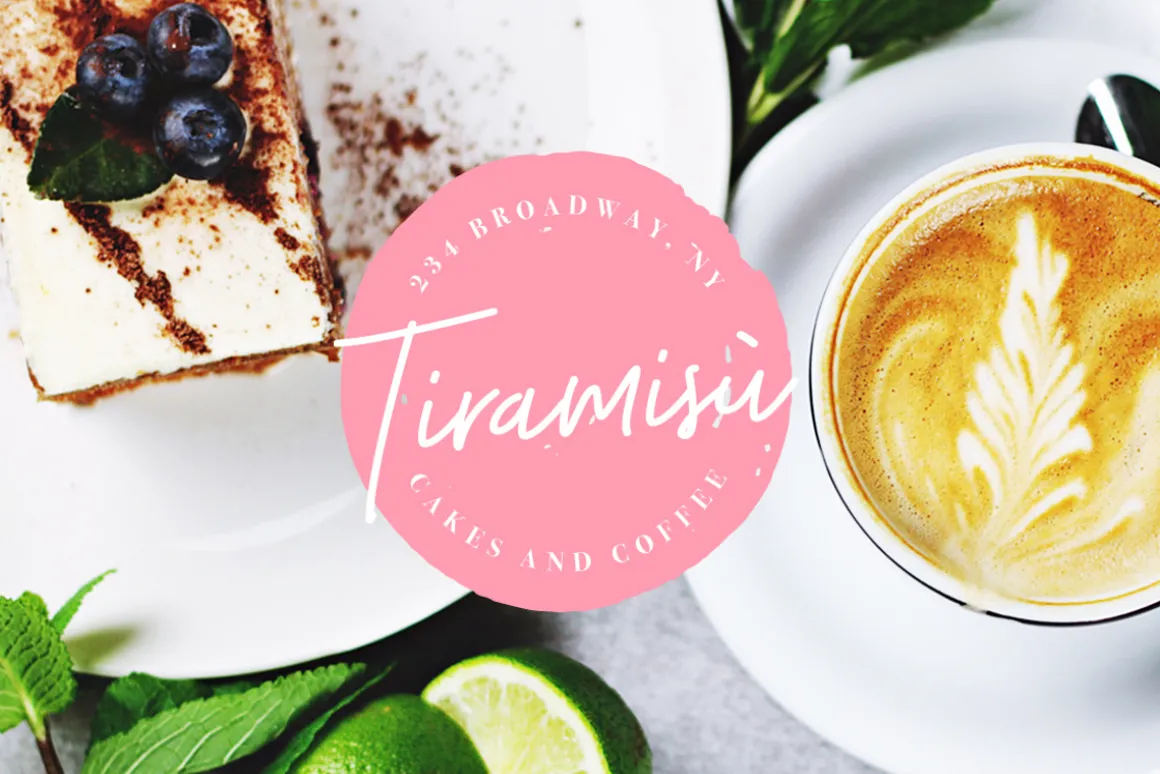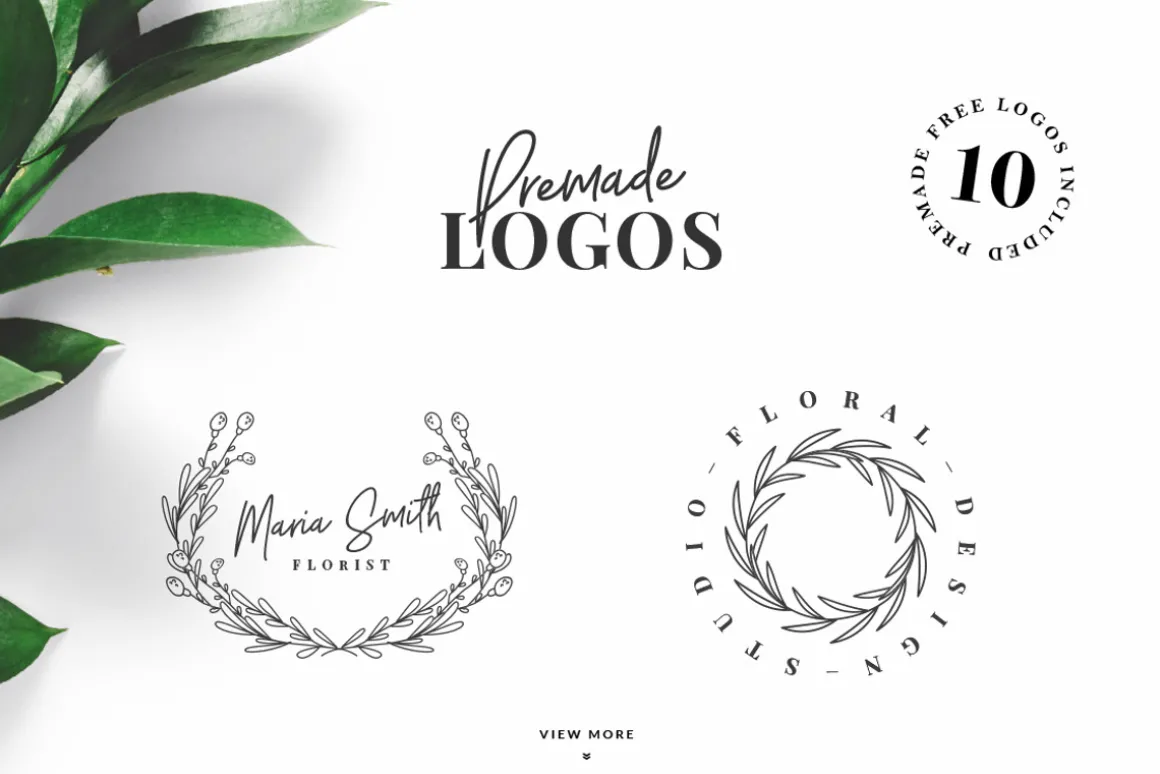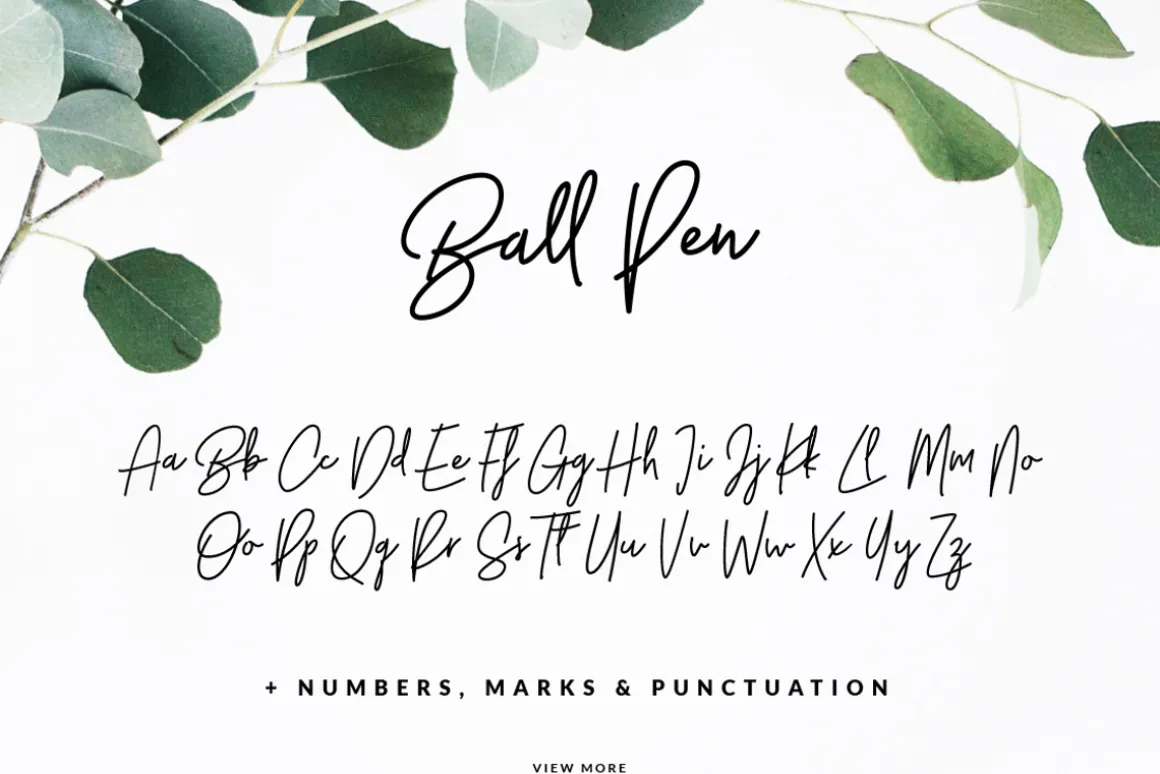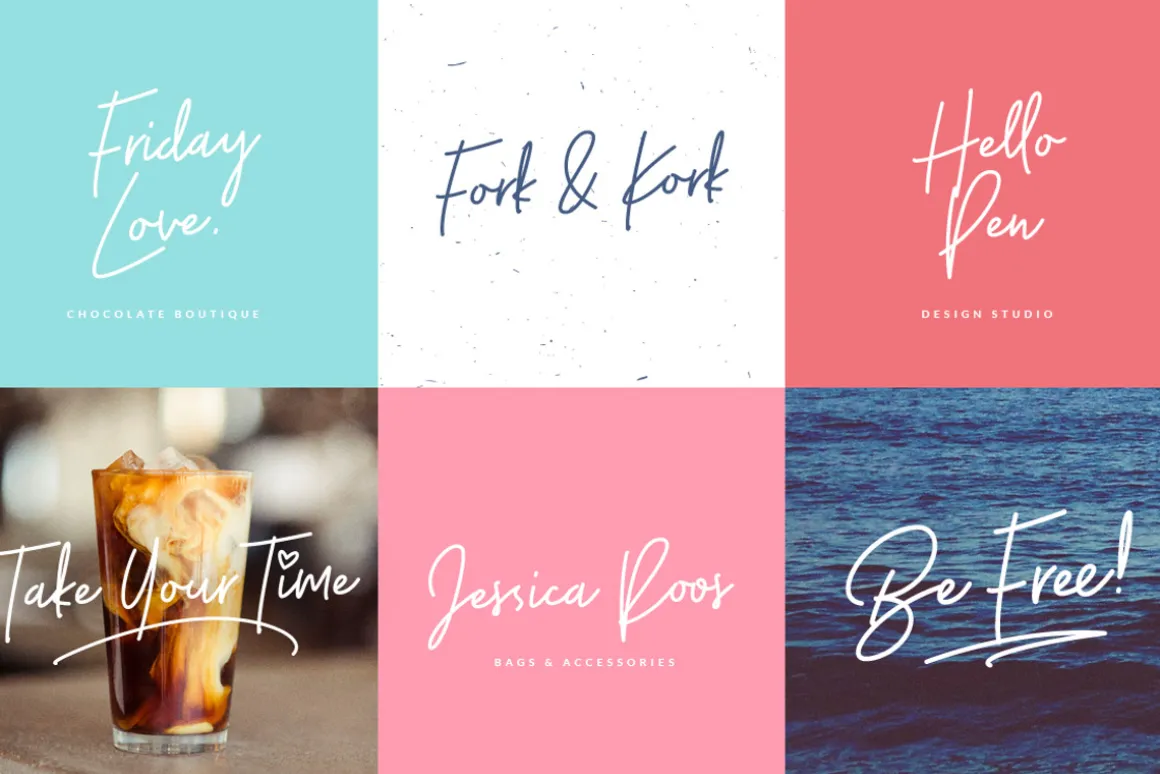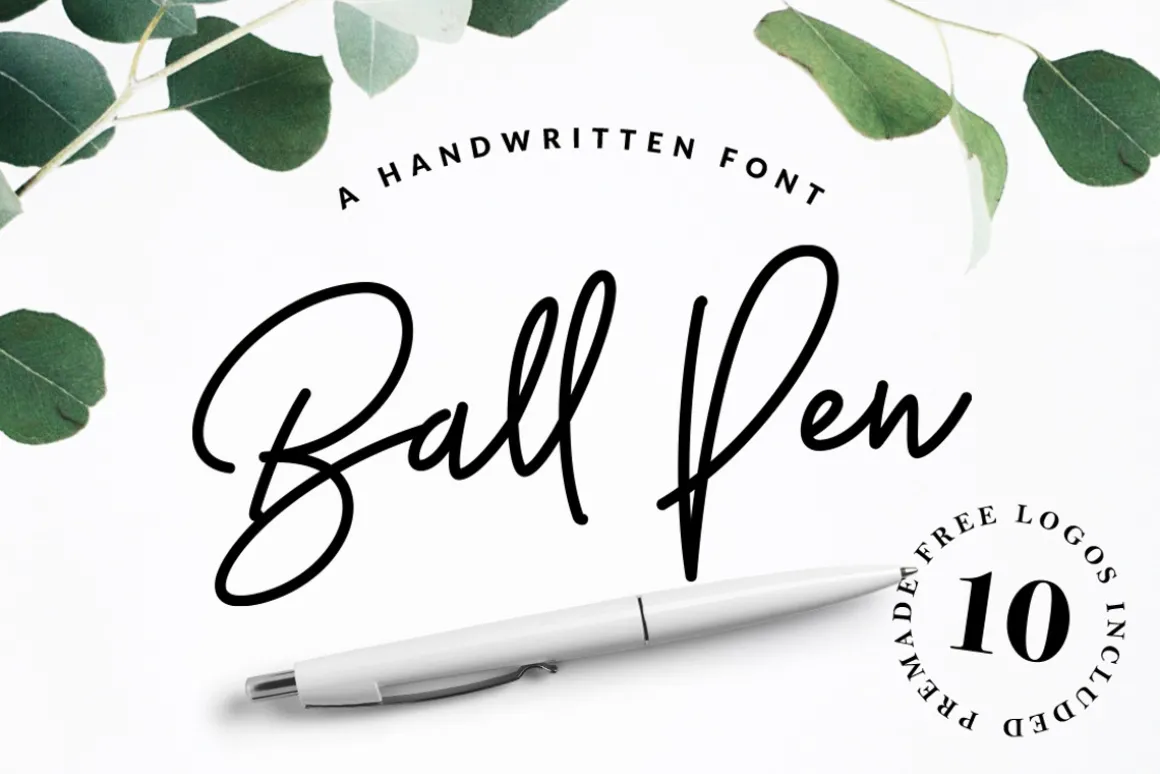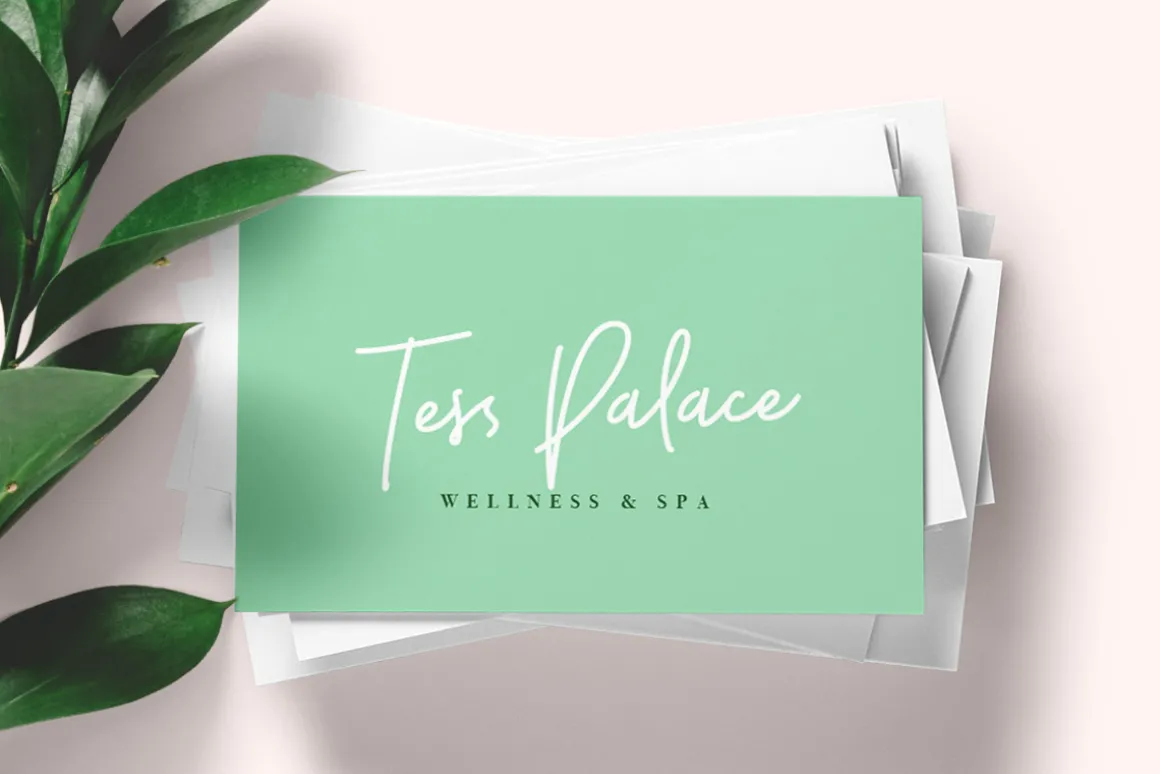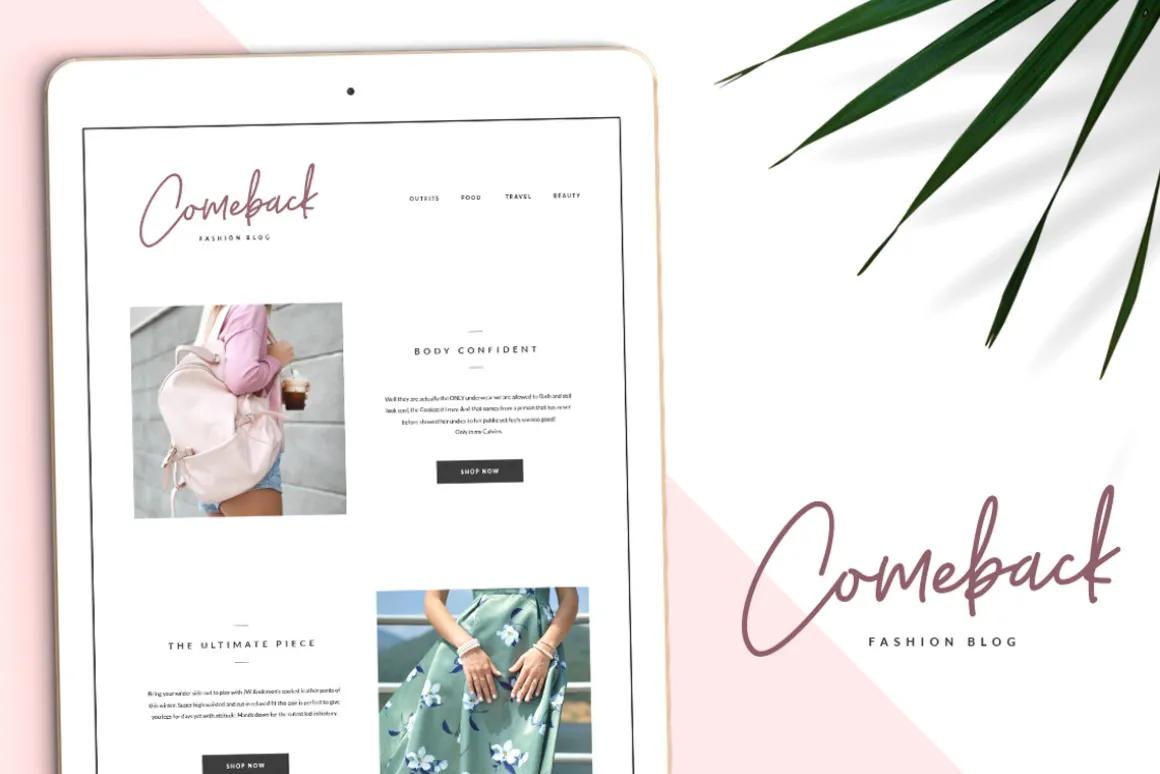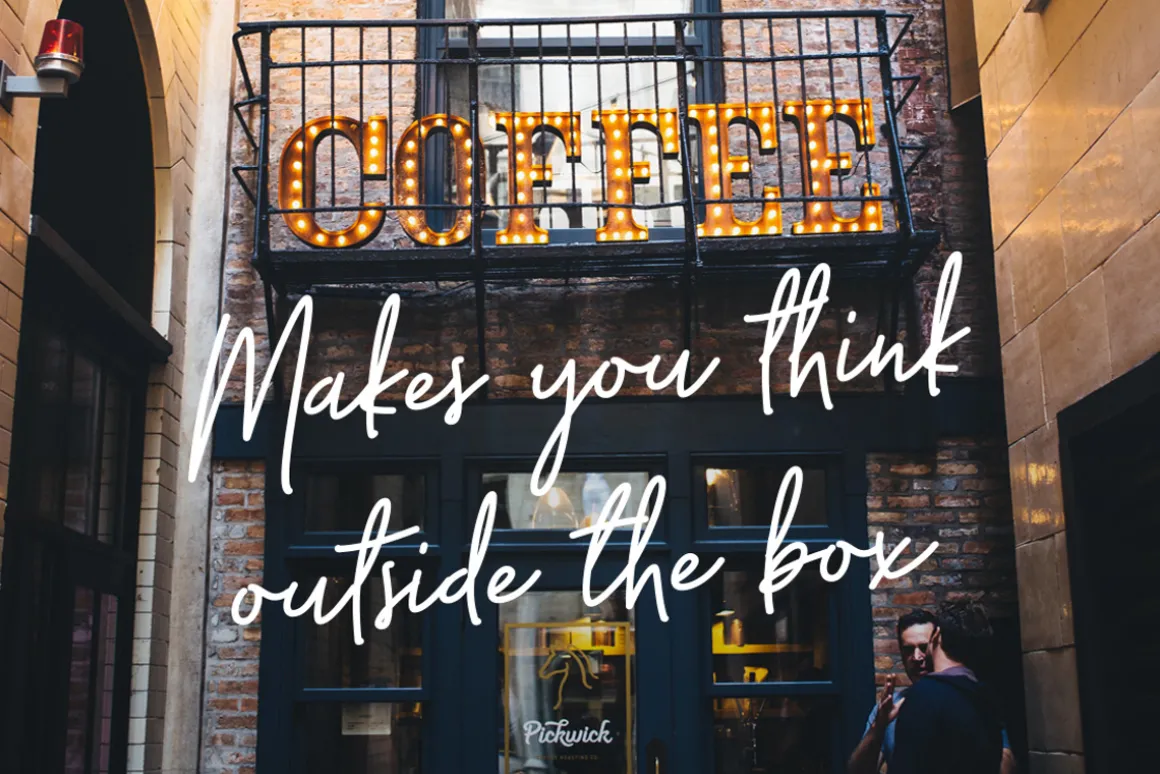
Ball Pen is a unique handwritten font. Its unique flow and easy signature style makes it perfect to use for logos, signatures, quotes, badges, labels, packaging design, blog headlines or simply use it in your next design project.
Ball Pen comes with upper and lowercase Basic Characters, Numbers, Marks and Punctuation. Diacritics are also available for Western and Central European Languages. As a feature you have also the standard Ligature, Alternates and Swashes.